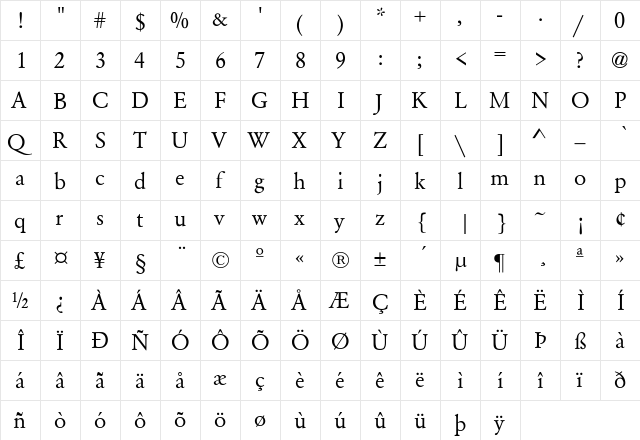
Garamond-Normal Regular Font Preview
Garamond-Normal Regular
Garamond-Normal Regular Font Details
Design Context for Garamond-Normal Typeface
Garamond-Normal is a composed and adaptable typeface that performs quietly and consistently across a wide range of design contexts.